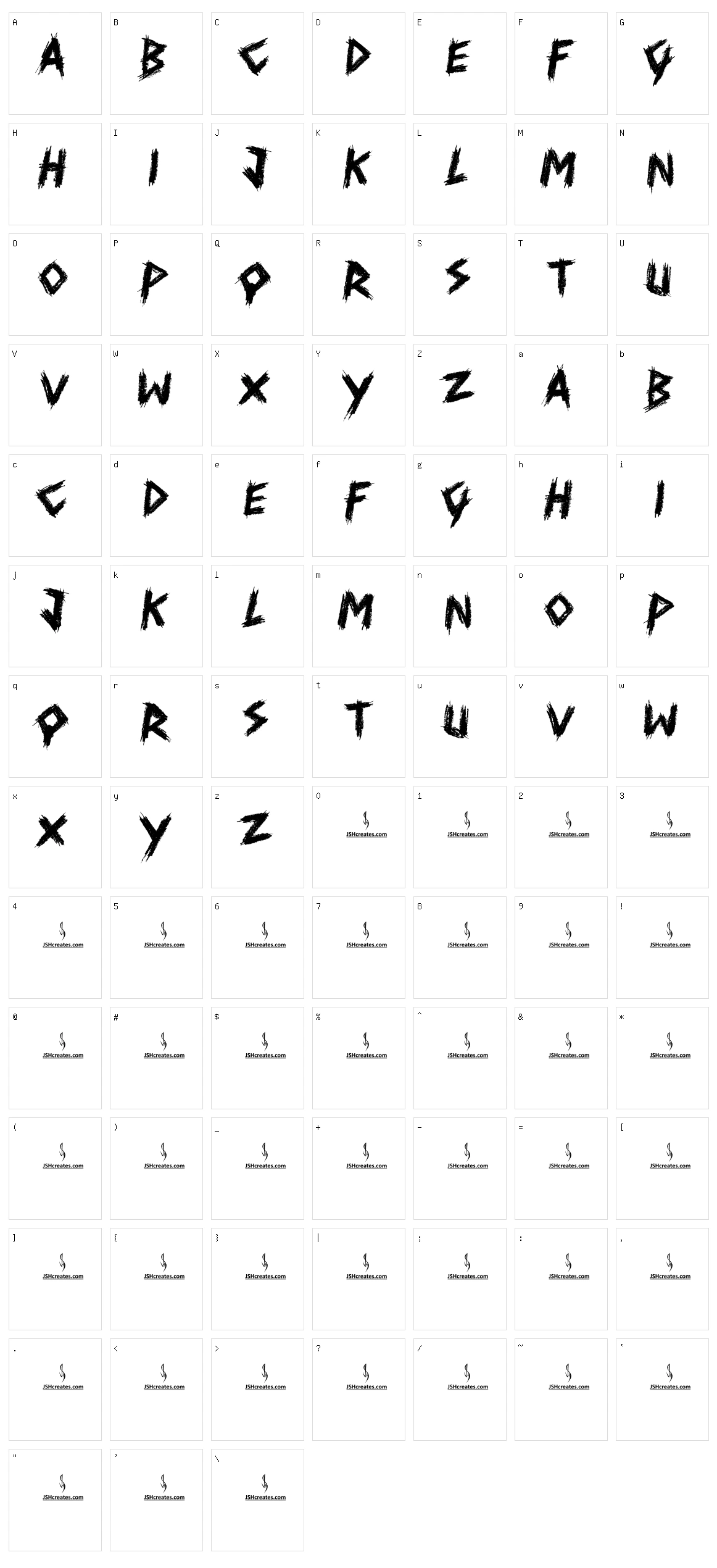
The free font Bad Charm is carefully designed by JSH creates, showcasing a thoughtful balance of creativity and usability and falls under the Horror font style. When you download the ZIP file, it contains only 245.44 KB of font files, making it lightweight and quick to download. Please review the license details below to understand permitted usage and distribution rights. If license information is not available, we recommend using this font for personal projects only or contacting the author directly for commercial usage permissions.
Created by Jonathan S Harris